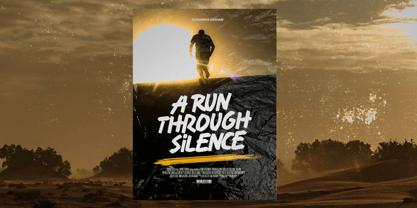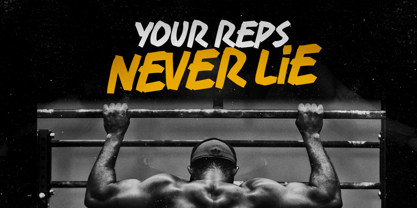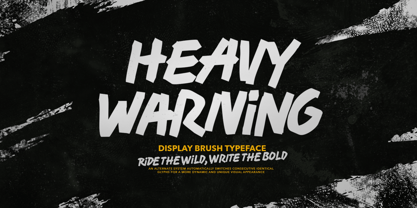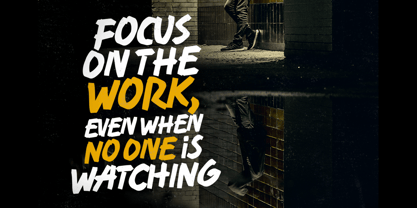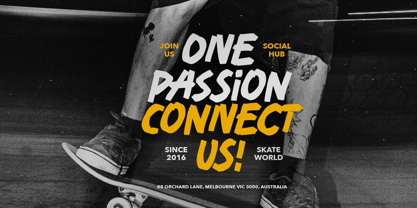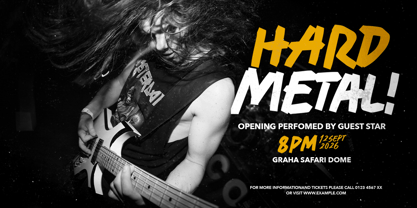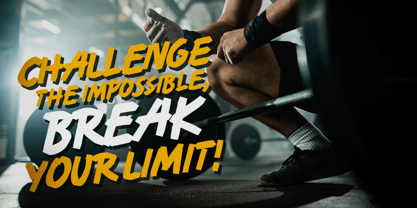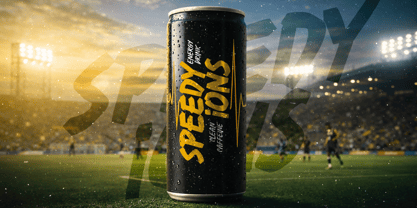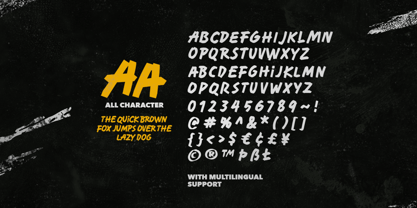
Heavy Warning
by Sarid Ezra
The Heavy Warning Font Family was designed by Sarid Ezra and published by Sarid Ezra. Heavy Warning contains 1 styles. More about this family
Heavy Warning is a bold and strong handwritten brush font. This font have different shape of uppercase and lowercase that you can use randomly to make it more naturally handwritten looks. And if you activate contextual alternates, it will change automatically between the uppercase and lowercase. You can use this font for any purposes such as quotes, branding, poster, or any project that need to looks strong and bold. Heavy Warning also support multi language!